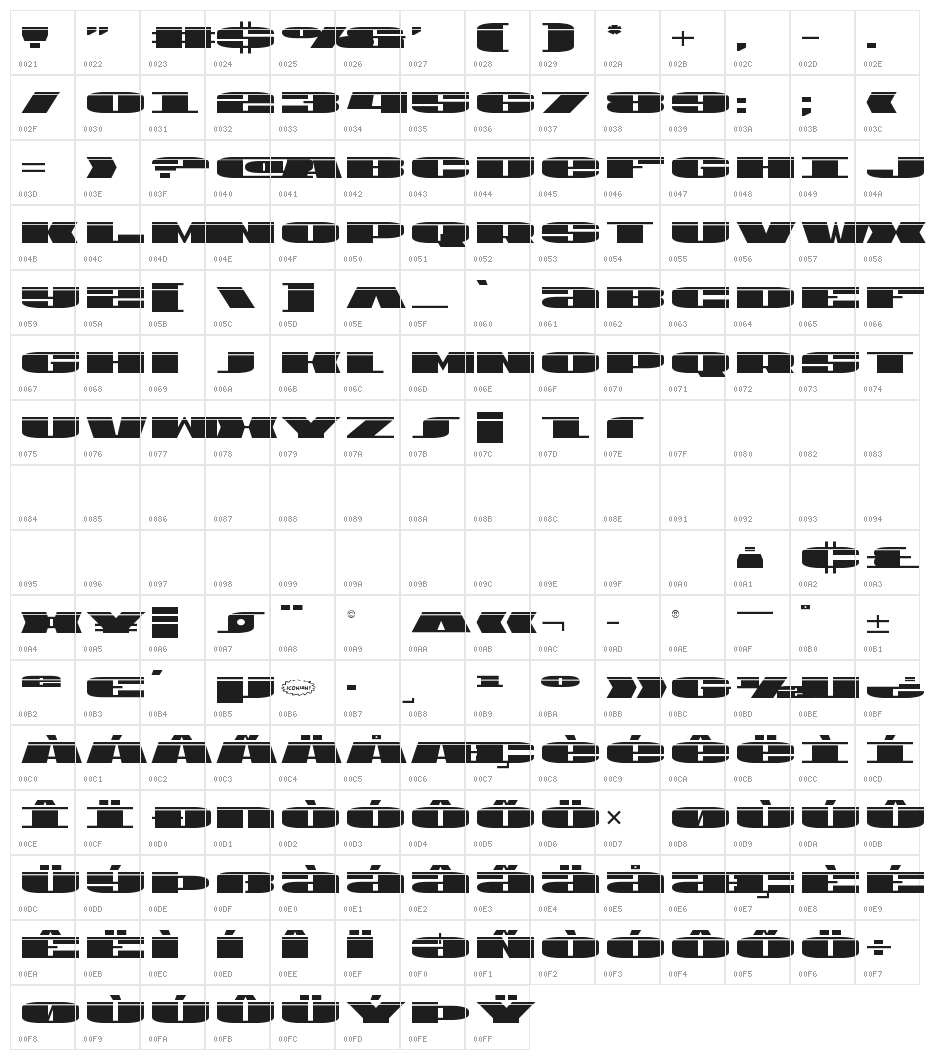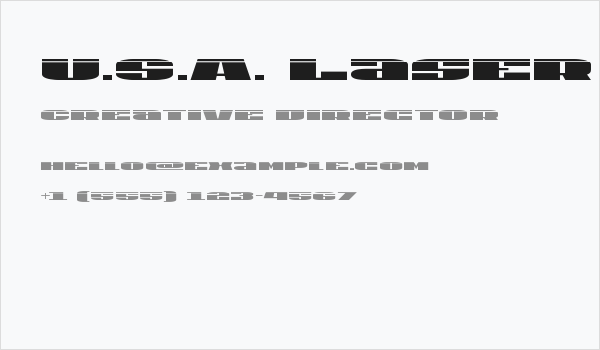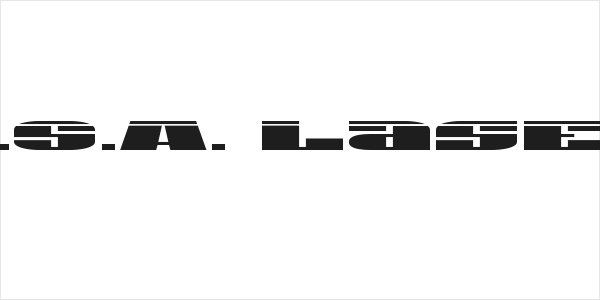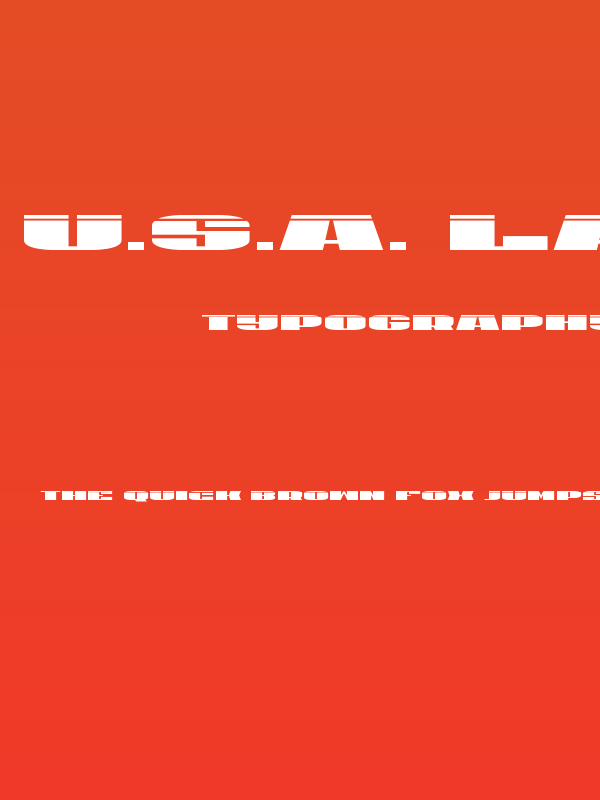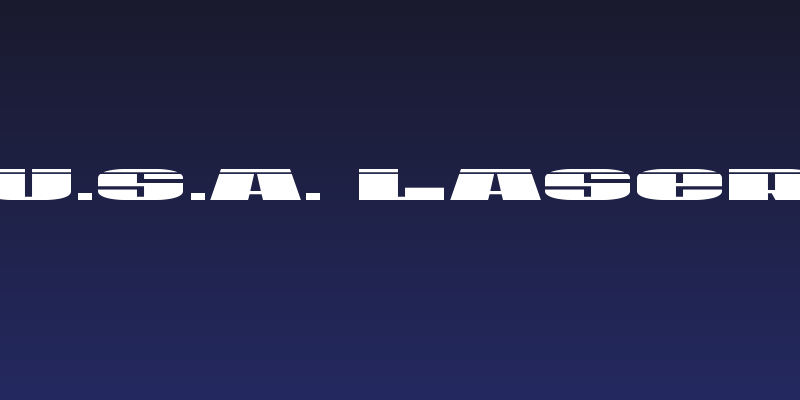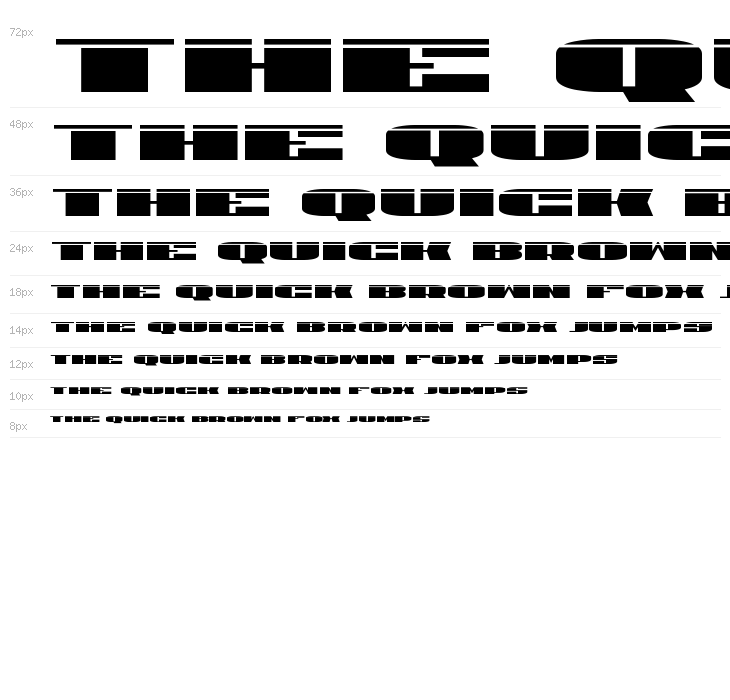
U.S.A. Laser Font
U.S.A. Laser Description
This font features a bold, futuristic design with a distinct stencil-like appearance. The characters are wide and blocky, with sharp edges and a strong presence. The uppercase and lowercase letters share a similar structure, maintaining a consistent style throughout. The numbers and special characters are equally bold, complementing the overall aesthetic. This font is ideal for projects that require a modern and impactful look, such as technology branding, posters, or digital media.
| Proposed Projects | Ideal for technology branding, posters, digital media, and any project needing a modern, impactful look. |